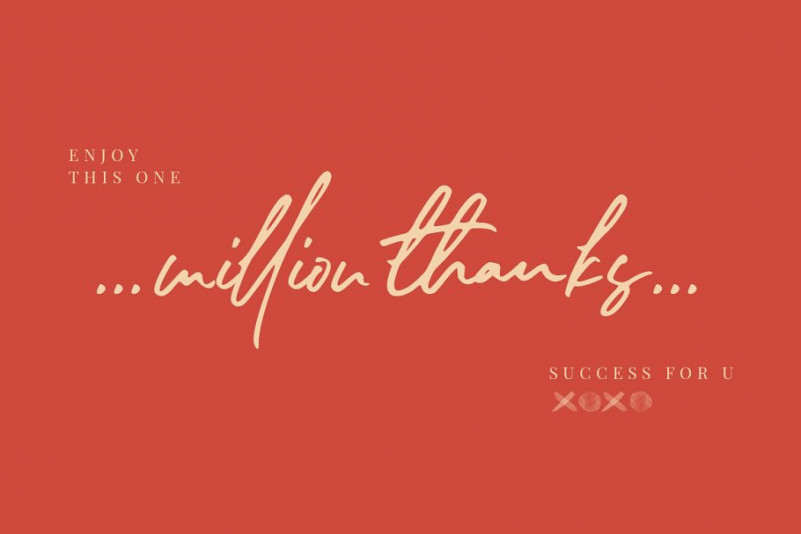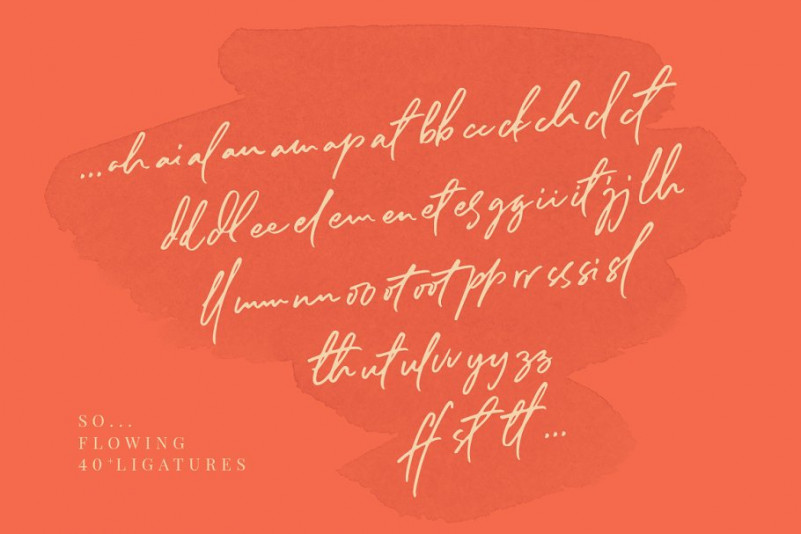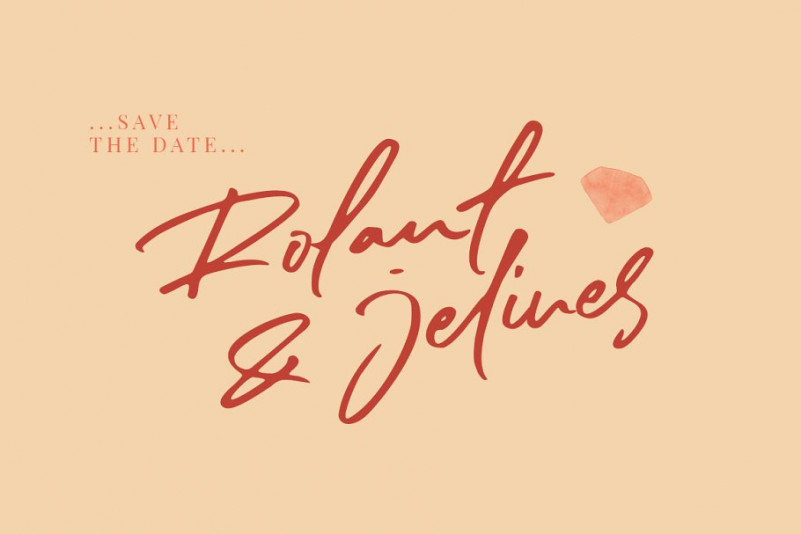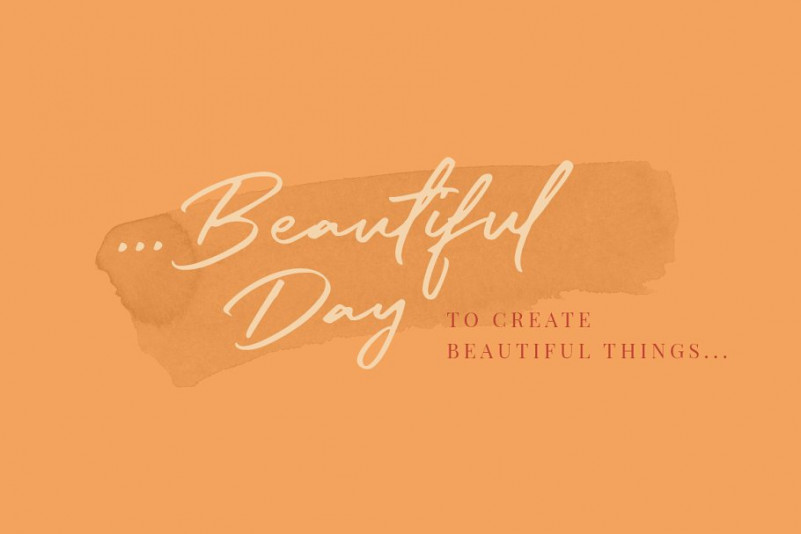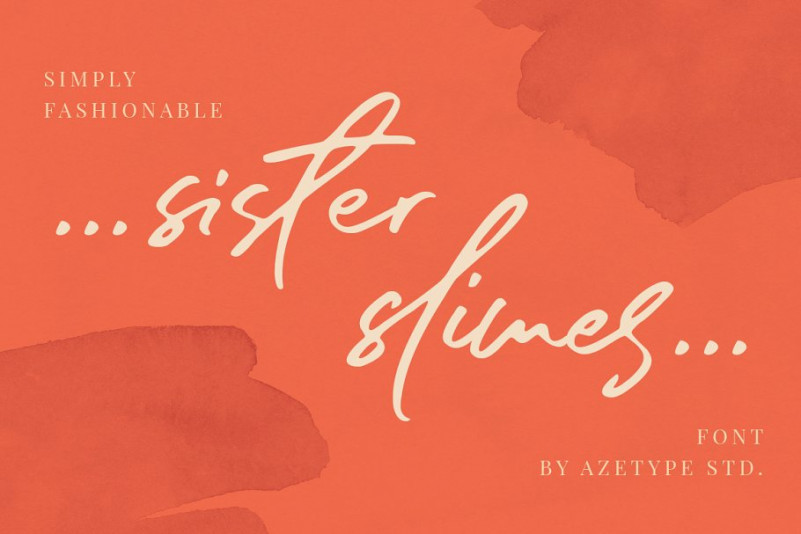
Sister Slimes Script Font
Sister Slimes Script Font – This is a handwritten font. Get stylish with distinct style. For those of you who are needing a touch of elegance and modernity for your designs, this font was created for you! It’s designed and shared by Azetype Std.. A simply fashionable font with the original hand scratches. So, Sister Slimes can’t wait to give its touch to all your design projects such as quotes, wedding invitation, personal branding, logotype, promotional materials, overlay on the picture, social media promotion, product packaging, etc